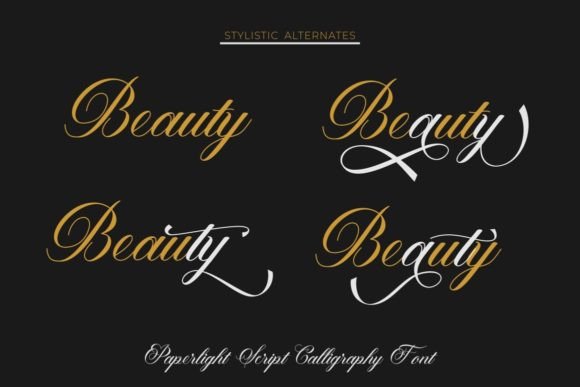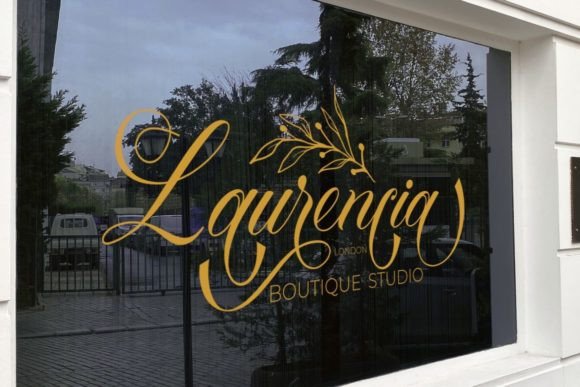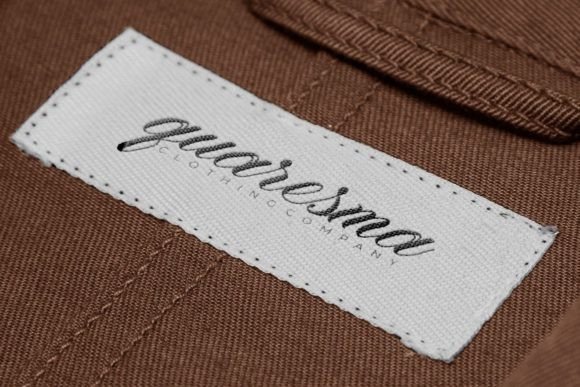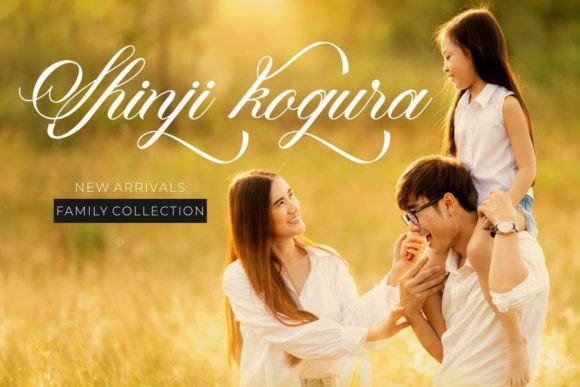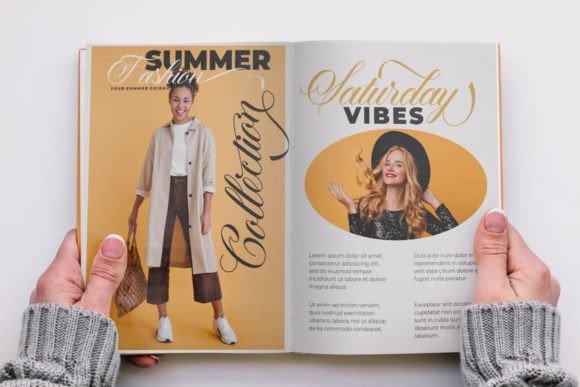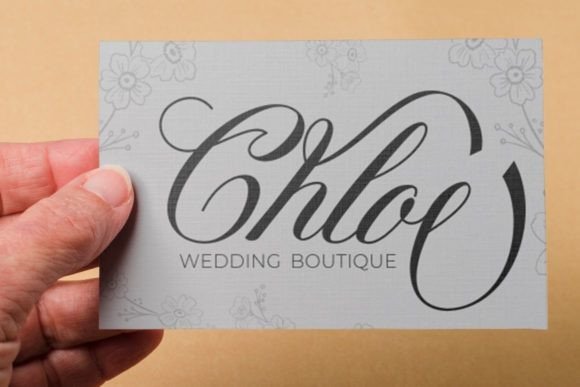
Introduction to Paperlight Script Font Font
Fonts play a crucial role in design, and the Paperlight Script Font font is a typeface that brings both character and versatility to any project. Whether you’re working on a branding project, a website, or a print design, the Paperlight Script Font font offers a unique style that can elevate your work.
Paperlight Script is a beautiful and light handwritten font with a unique feel and a stunning impact.
It will add a luxury spark to any design project that you wish to create This font is PUA encoded which means you can access all of the amazing glyphs and ligatures with ease.
Key Features of Paperlight Script Font Font
• ✅ High-quality typeface designed for professional use
• ✅ Includes a wide range of glyphs and characters
• ✅ Ideal for logos, branding, websites, and print
Why Choose Paperlight Script Font Font?
The Paperlight Script Font font is more than just a typeface – it’s a design tool that helps you communicate your message with style and clarity. Its unique character set and versatile design make it suitable for a wide range of applications, from elegant invitations to bold headlines.
With its carefully crafted letterforms and balanced proportions, the Paperlight Script Font font ensures readability and visual appeal across all mediums.
What makes Paperlight Script Font font special?
The Paperlight Script Font font stands out with its unique design, exceptional readability, and versatility across various design applications.